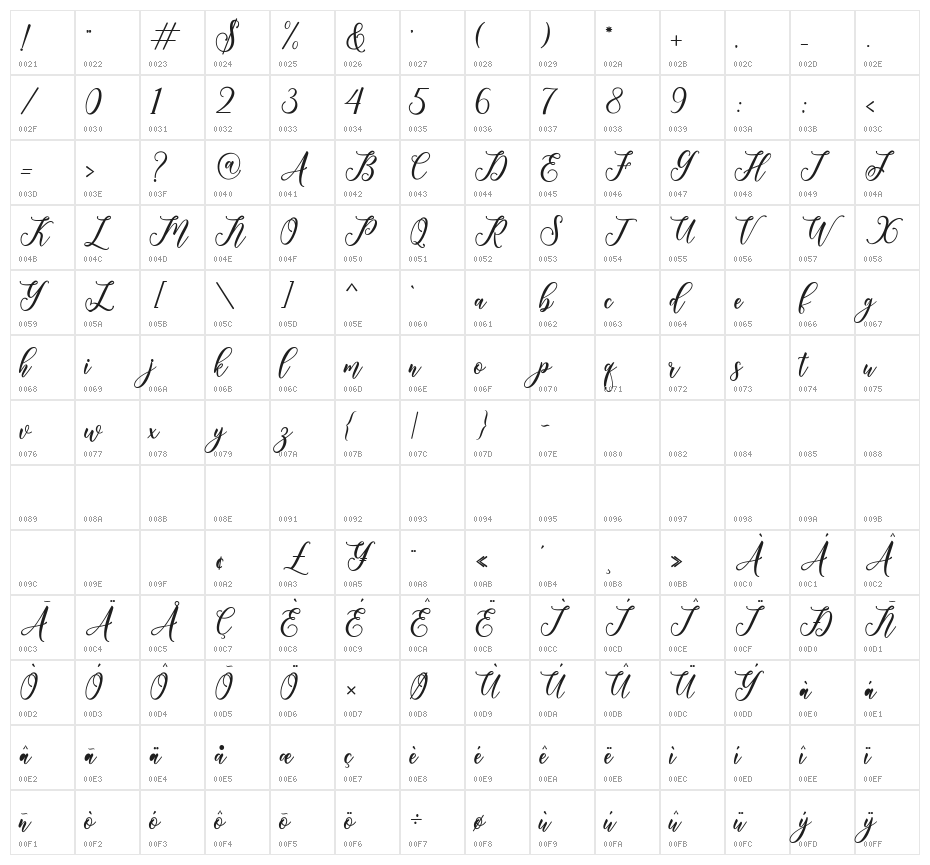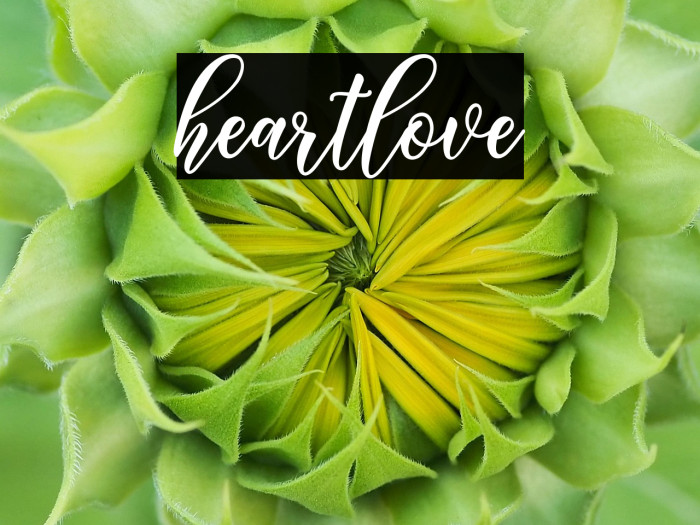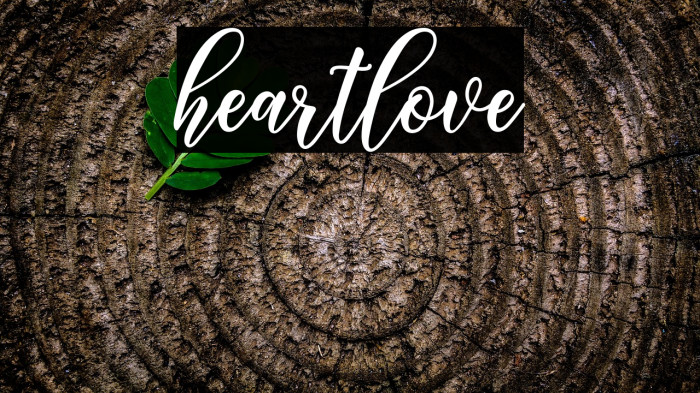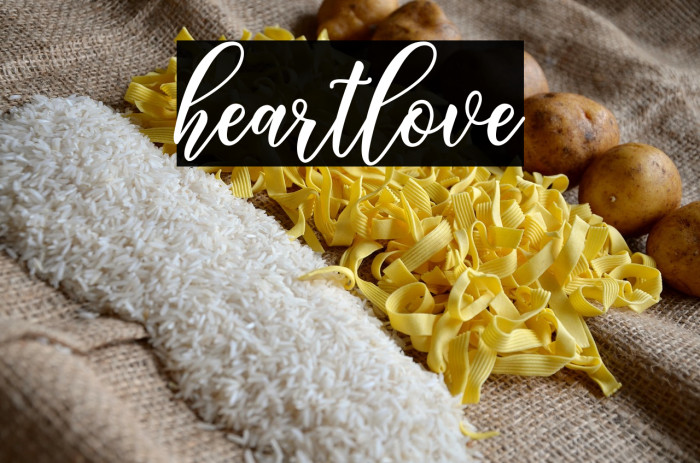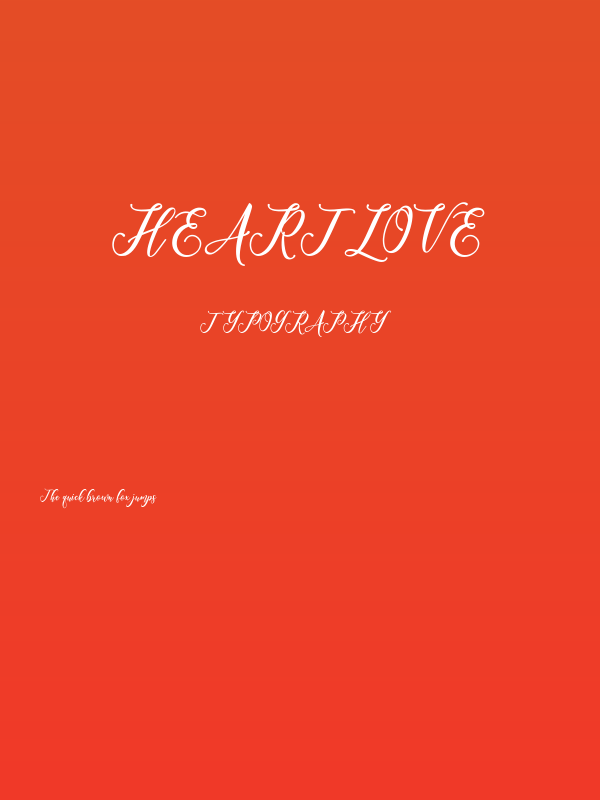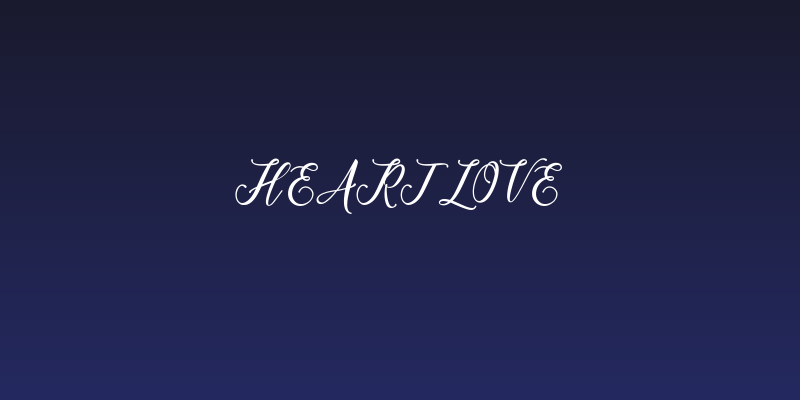
heartlove Font
heartlove Description
This elegant script font features flowing, cursive letters with a sophisticated and romantic flair. The uppercase letters are ornate, with sweeping curves and loops, while the lowercase letters maintain a graceful continuity that enhances readability. The numbers and special characters complement the overall style, adding a touch of elegance to any design. The font's smooth, connected strokes give it a handwritten appearance, making it ideal for projects that require a personal touch. Its stylish and decorative nature makes it suitable for a variety of creative applications.
| Proposed Projects | Ideal for wedding invitations, greeting cards, branding, and elegant packaging designs. |